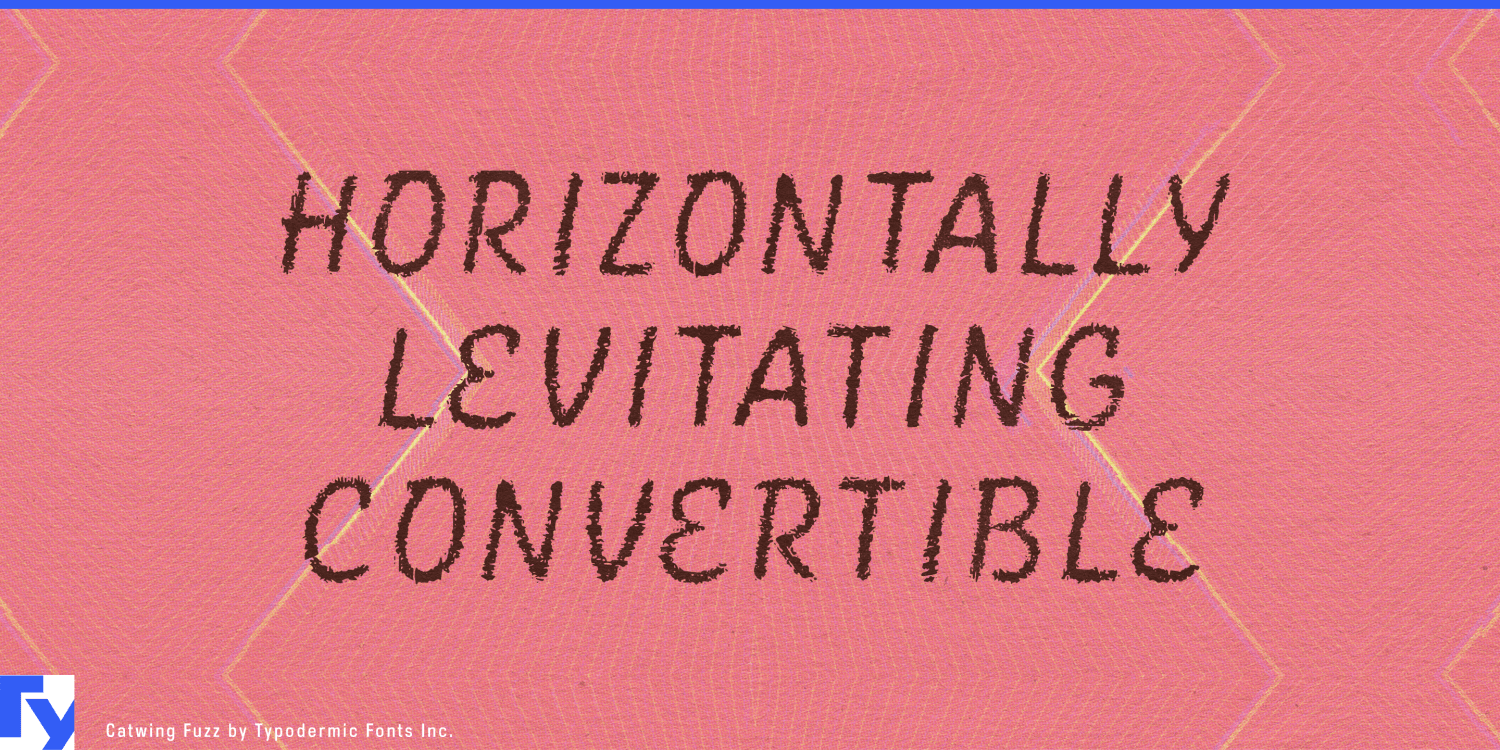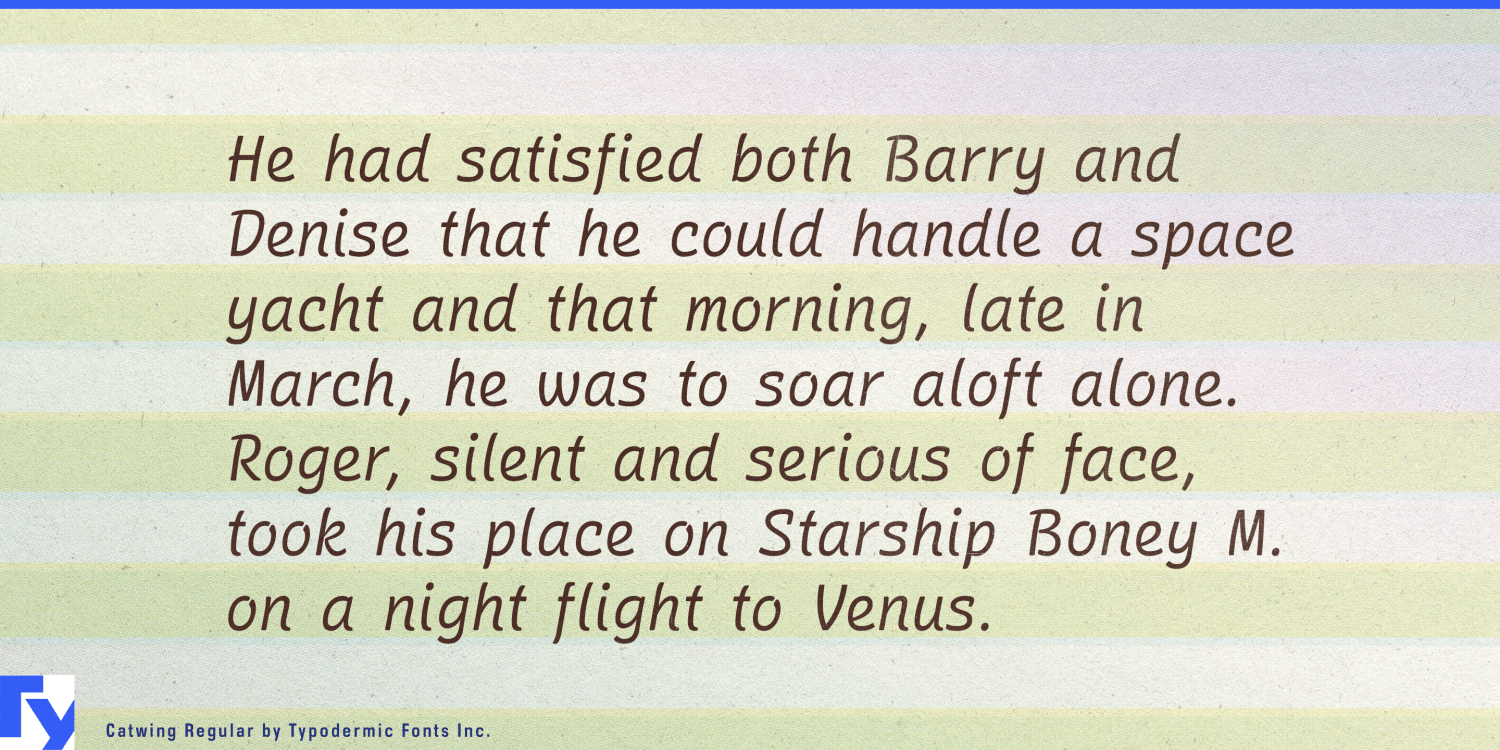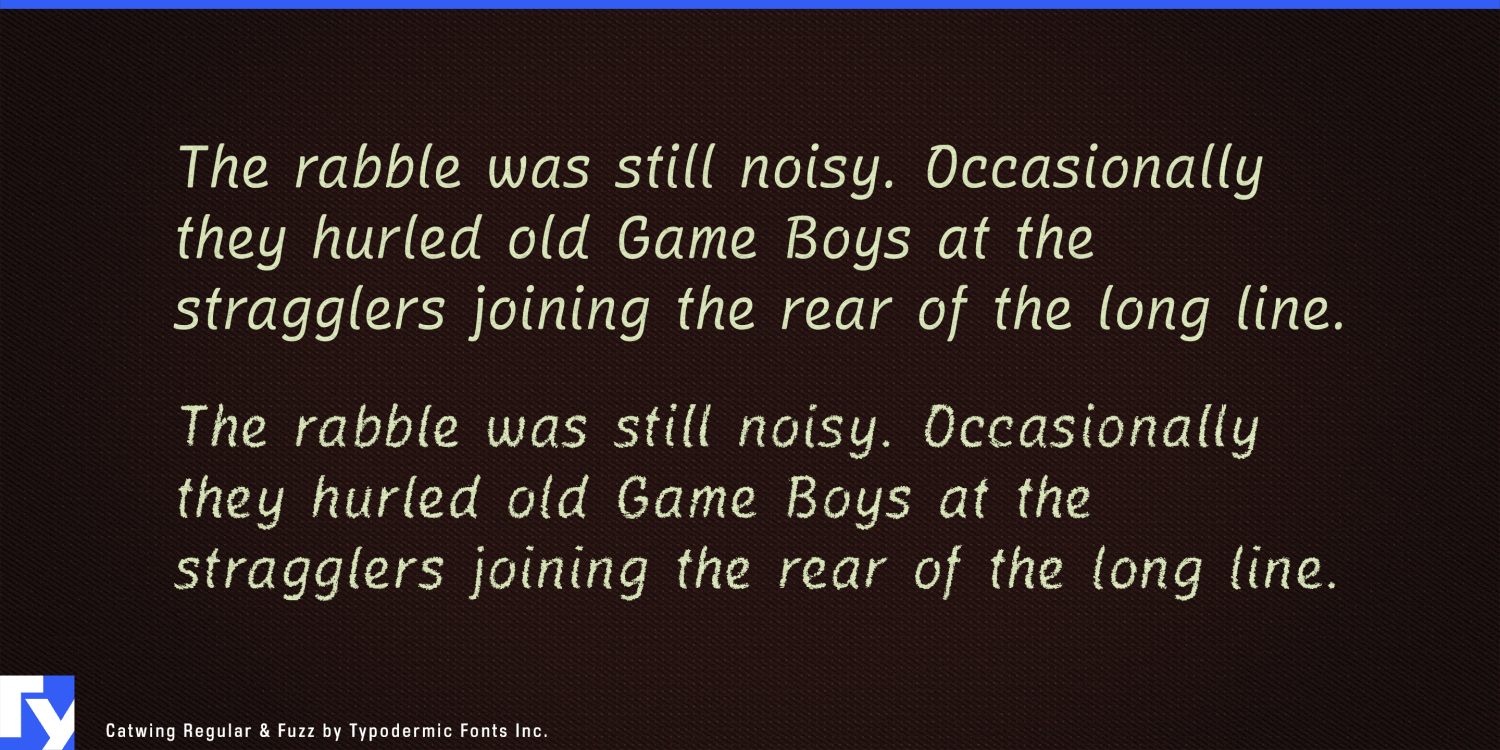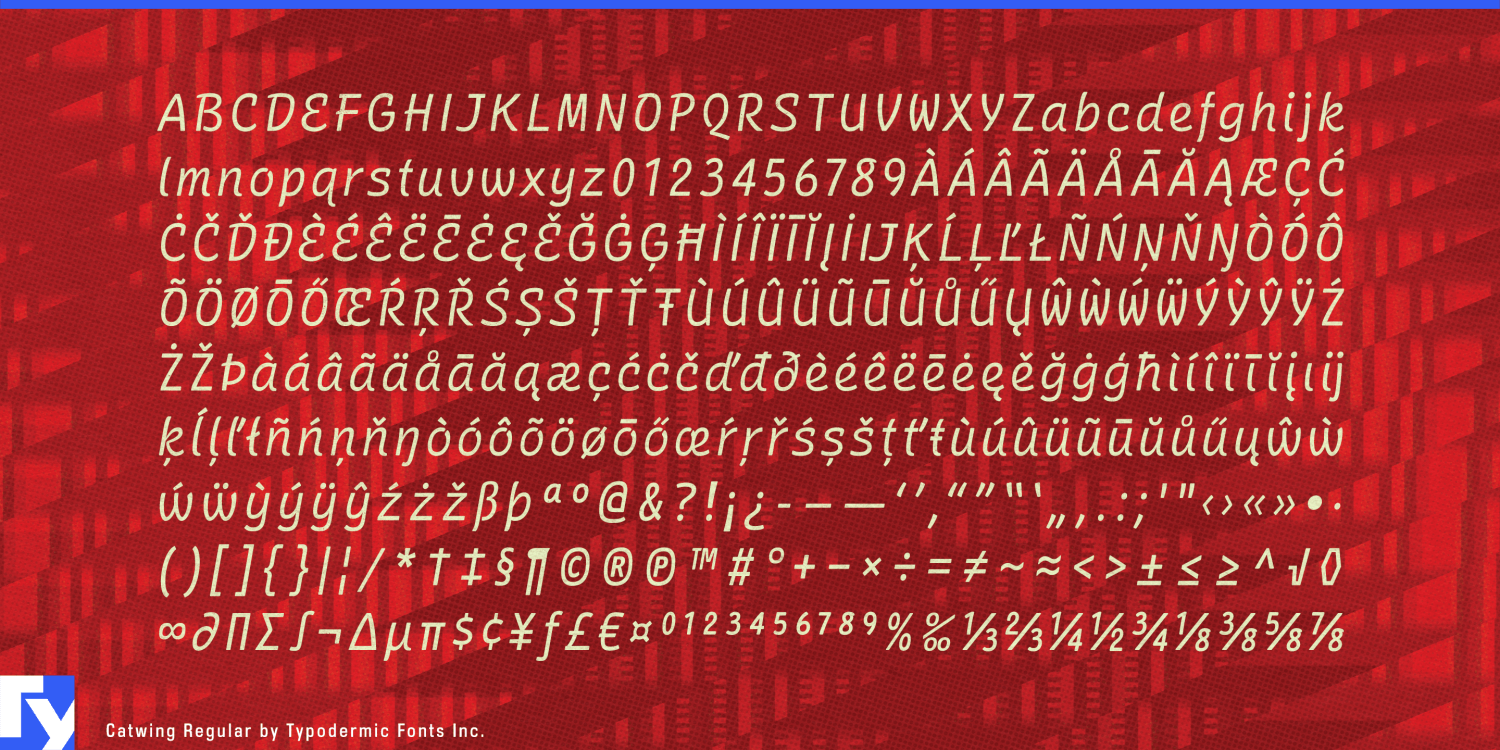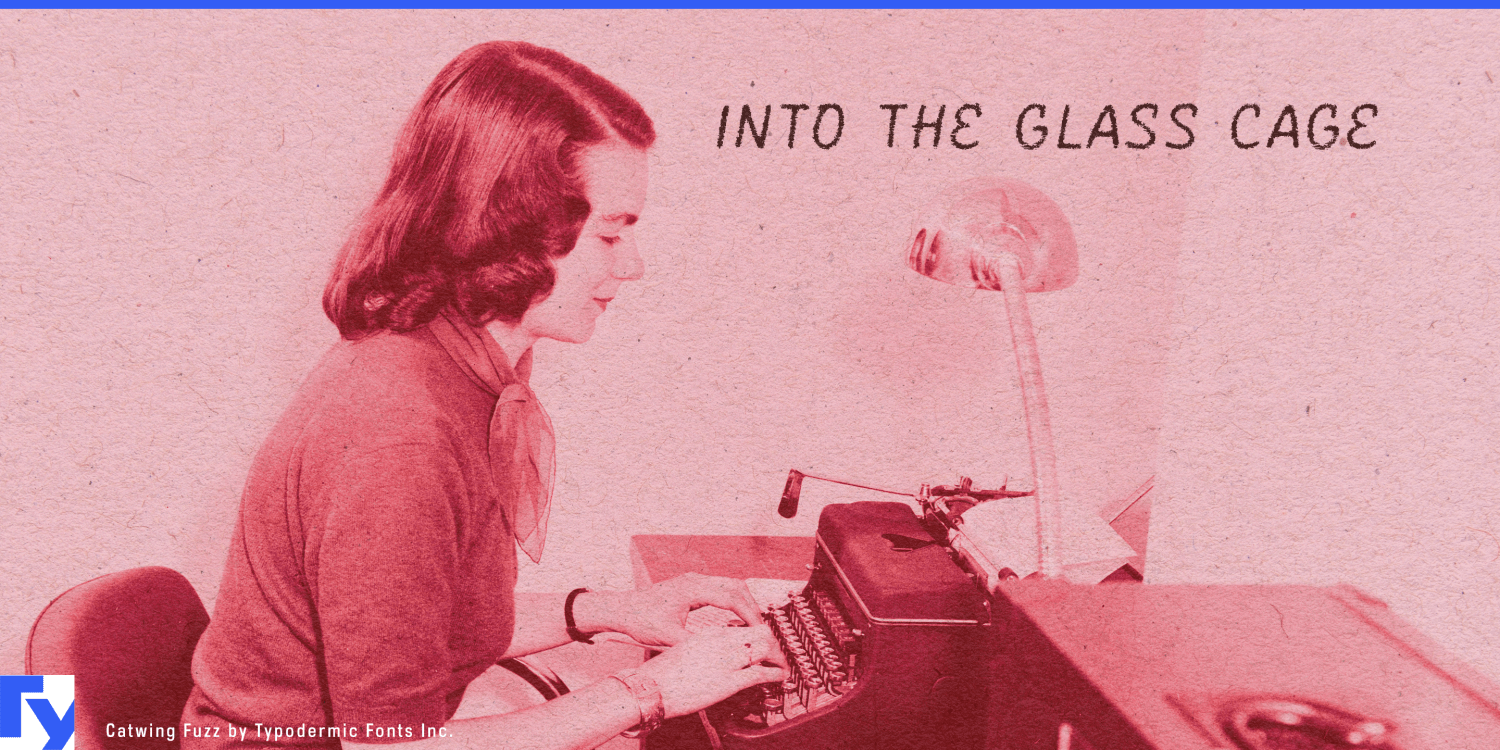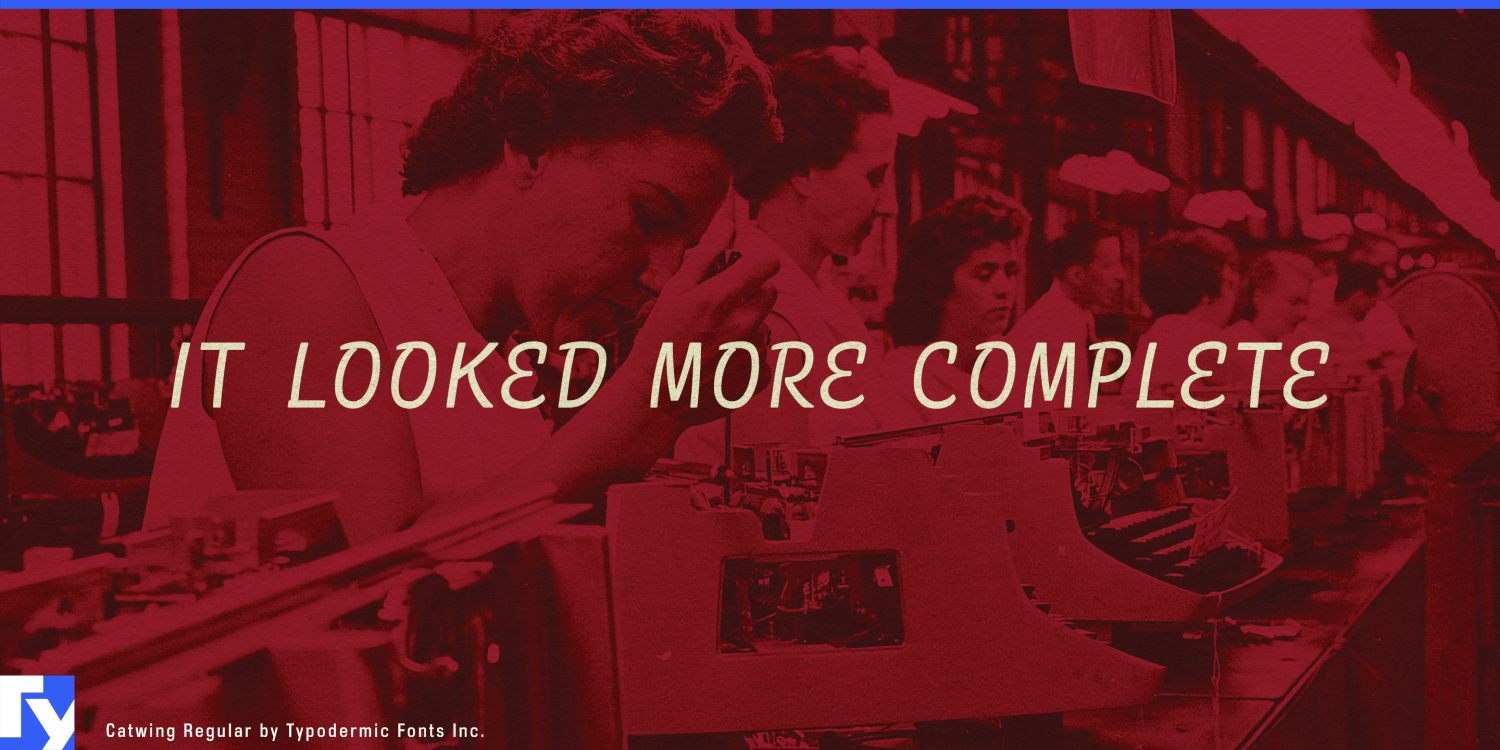
Catwing
Catwing captures a typewriter’s attempt at handwriting. Script typewriters produced a machine-made version of personal correspondence: every character repeated exactly, every movement constrained by the mechanism, yet the result carried more warmth than an ordinary office face. Catwing preserves that curious middle ground between individual gesture and standardized production.
Its letterforms come from manual script typewriters, but the spacing has been redesigned proportionally. Narrow characters receive less room and wide ones receive more, allowing words to flow without the gaps and collisions imposed by fixed-pitch typing. Catwing evokes the machine without reproducing every mechanical restriction. Its restrained capitals can handle product names, menu sections, and headings; the lowercase carries notes, descriptions, quotations, and short passages.
This combination is particularly useful in food design. Many food scripts imitate brush lettering, chalk, or casual handwriting; Catwing offers a more orderly kind of personal attention. It can suggest a recipe card, test-kitchen note, restaurant office, or correspondence from a long-established producer. A package can feel as though its description was typed by someone who knows the recipe, even when the surrounding design is precise and contemporary.
Catwing can shape specialty-food packaging for preserves, biscuits, tea, coffee, confectionery, baking products, and seasonal releases. Its capitals suit product names and flavours, while the lowercase works for founder’s notes, serving suggestions, and short recipe introductions. Commercial cookbooks can use it to distinguish recipes, personal observations, or archival material from the main editorial typography.
Restaurant and hospitality identities offer another natural setting. Catwing can appear on cocktail lists, tasting menus, reservation cards, guest letters, room-service materials, table cards, and chef’s notes. The typewritten origin gives these pieces an administrative plausibility that conventional calligraphy lacks; they seem personal, but reproducible enough to belong to an operating business.
Regular and Fuzz provide two impressions of the same voice rather than a range of weights. Regular gives packaging, menus, and editorial layouts a clean interpretation of script typing. Fuzz introduces the roughness of an uneven ribbon impression, while automatic letter-pair substitutions reduce obvious repetition. It is particularly effective for reproduced recipes, historical inserts, period packaging, and correspondence props.
Catwing also suits period-drama titles, documentary quotations, archival captions, book covers, and exhibitions about correspondence, office culture, travel, or domestic history. A serif or sans family can carry ingredients, prices, instructions, and hierarchy; Catwing supplies the product name, recipe note, or message that seems to come from a particular person. It turns standardized typing into something unexpectedly intimate.